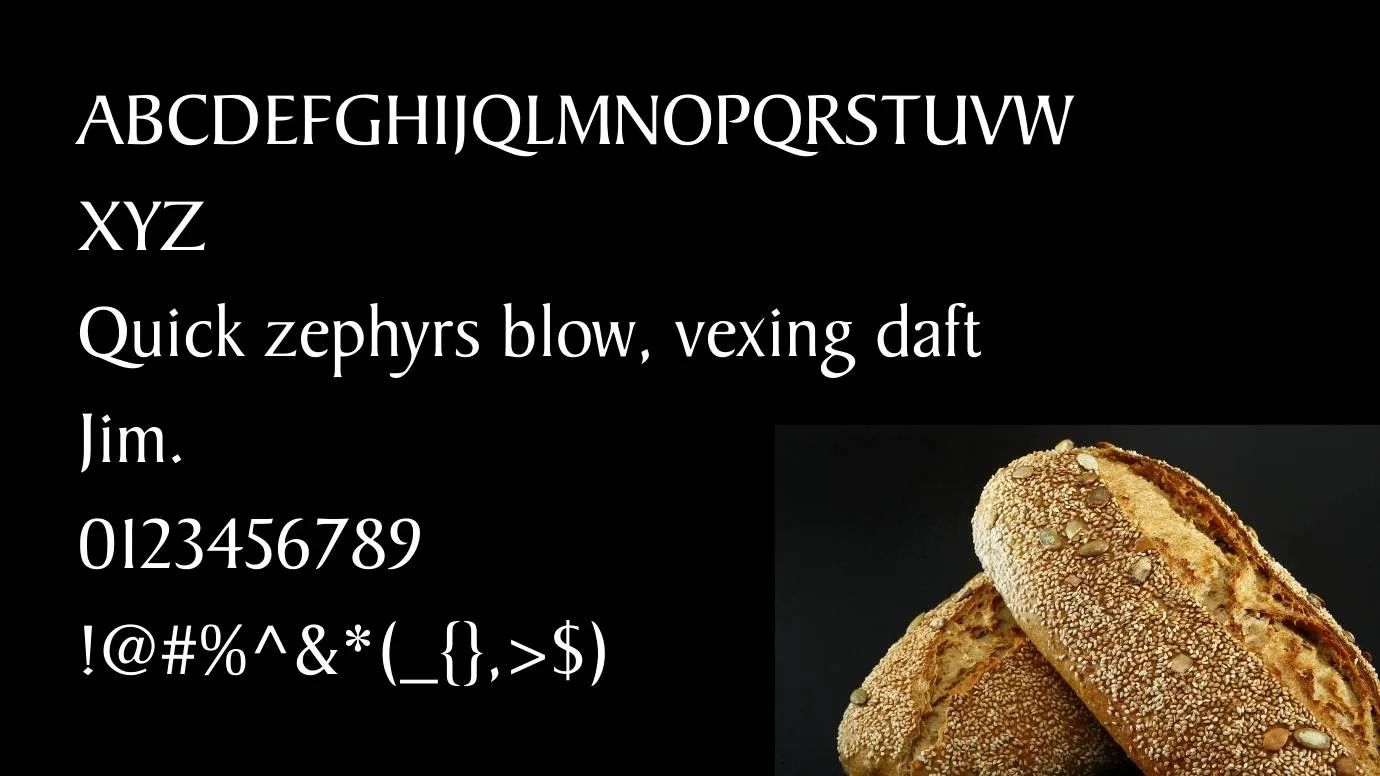
Designers seek the perfect font for their designs. Today, we are proud to introduce Baker Signet Font, a stylish and attractive typeface that is sure to capture the interest of any designer. This versatile font can be used on both small and large screens, making it a go-to choice for graphic designs. Baker Signet Font has been utilized in a variety of amazing designs including skateboards, t-shirts, wallpapers, homeware, presentations, logos, websites, and more.
This font style can also be seen in the CSS (Cascading Style Sheet), Corel Draw, Adobe Photoshop, and Canva. This font style is much popular and it has been also listed in the font library of Adobe. It can also be easily utilized n display designs and projects. You can also utilize this font for creating trendy thumbnails for your youtube channels. This typeface also has a pairing ability. As a result, it is also giving you the access to combine this font with other typefaces and make your design more attractive or stylish.
Creator of Baker Signet Font
This amazing and readable font style has been created by Bitstream. They have created a number of fonts that are famous all over the globe. They have focused on the perfect readability score of this font style.
This typeface has been constructed with two styles Regular and Extra Light. These styles of this family are comprised of capital letters, small letters, glyphs, punctuations, numbers, symbols, special characters, and many languages support.
View of Baker Signet Font
| Style | Gothic |
| Designer | Bitstream |
What font is Baker Signet?
This typeface has a slightly bold and stylish texture appearance that can make your designs trendy and attractive.
Is Baker Signet a professional font?
This font style has been widely used to create official documentation and certificates. So, yes this font style is also a Professional Font.
Is Baker Signet font a good font?
This font style has been utilized by many designers in various projects and designs. So, this font style is also a good font.
Is Baker Signet a web font?
This font style has an elegant and clean texture appearance that can also be used for body text. So, yes this font style is also a web font.